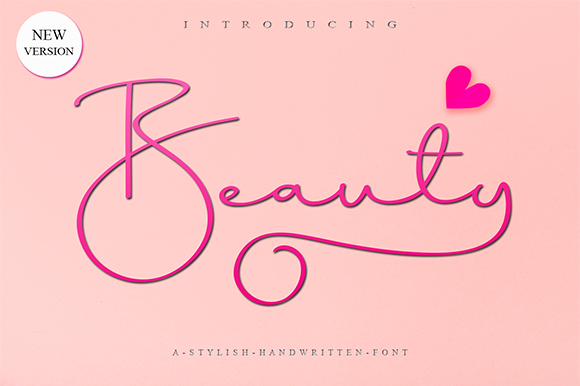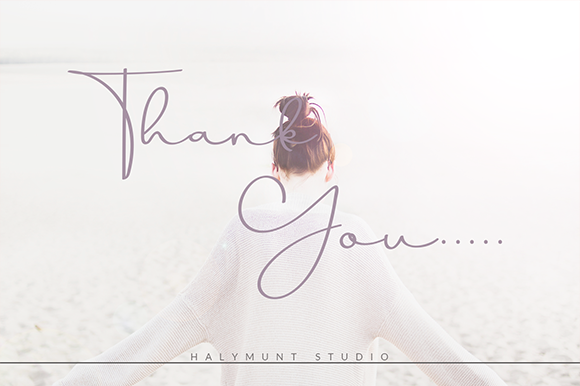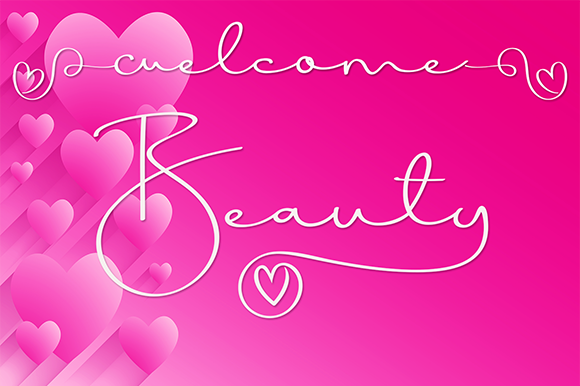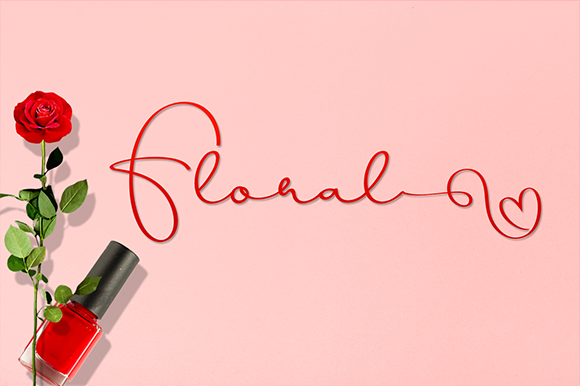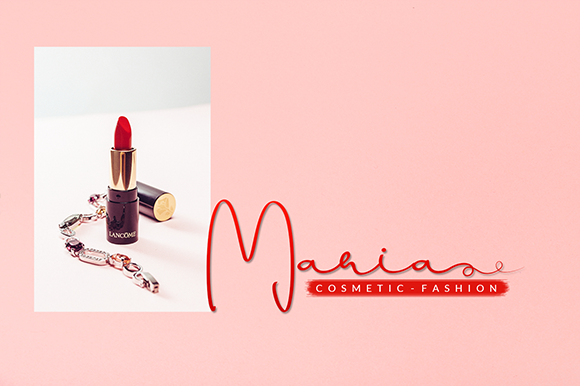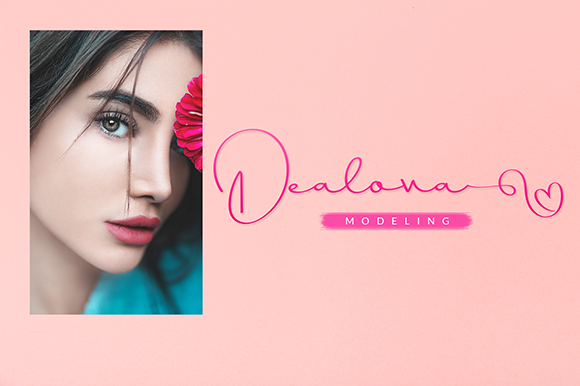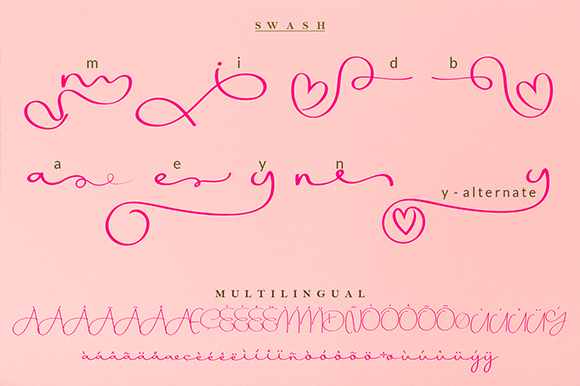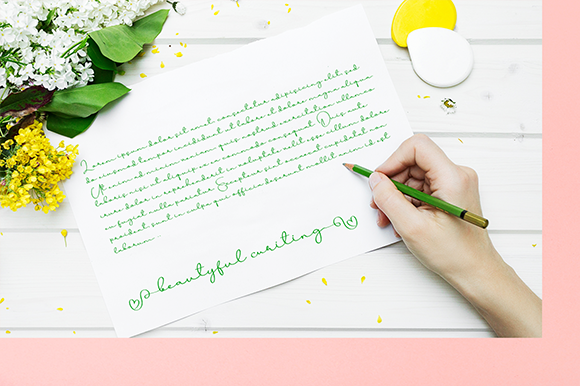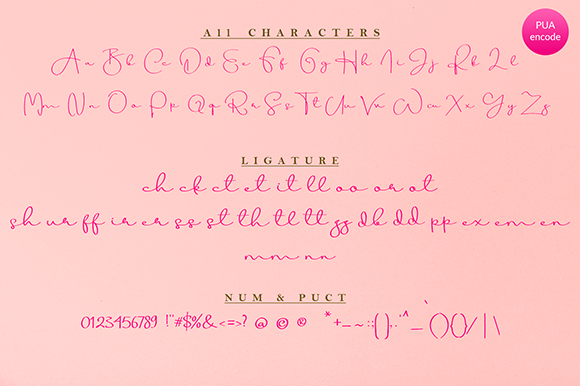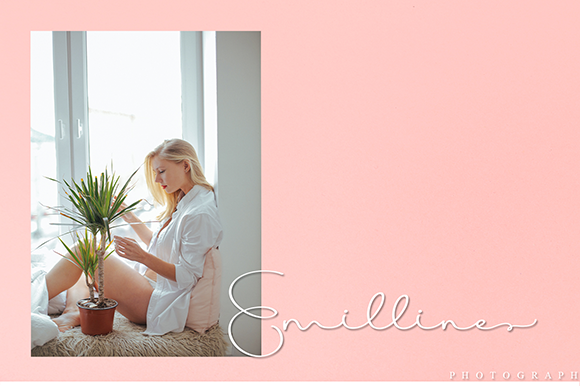
Beauty Script Font
About Beauty Script Font
As the name suggests, Beauty is a stunning and elegant handwritten font with bold swashes. It will add an authentic twist to any design project.